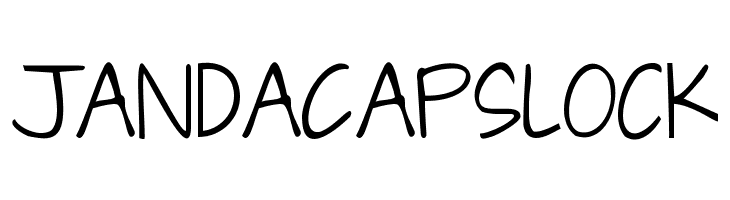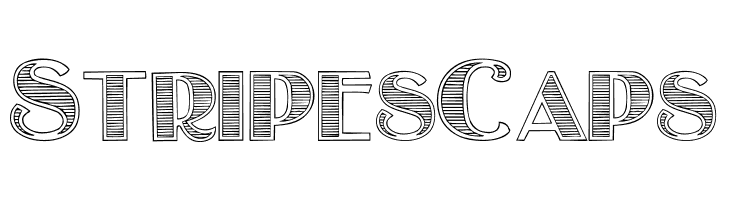
A modern, rounded font with geometric structure and consistent stroke width.
A bold, decorative font with a playful, circus-inspired style.
A classic serif font with sharp, angular serifs and a modern twist.
A bold, playful handwritten font with thick strokes and rounded edges.
A playful, rounded font with smooth curves and a friendly appearance.
A playful, hand-drawn font with tall, narrow characters and a whimsical style.